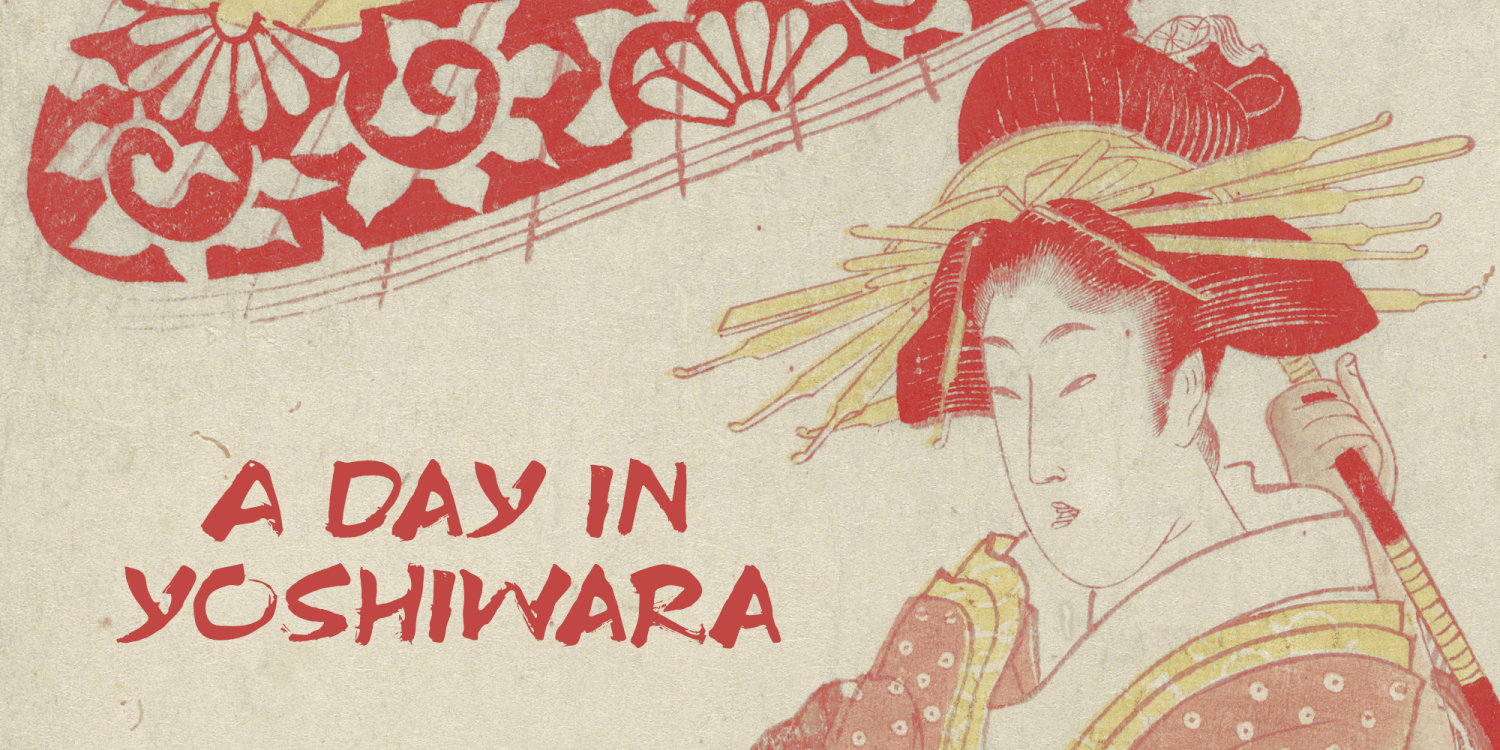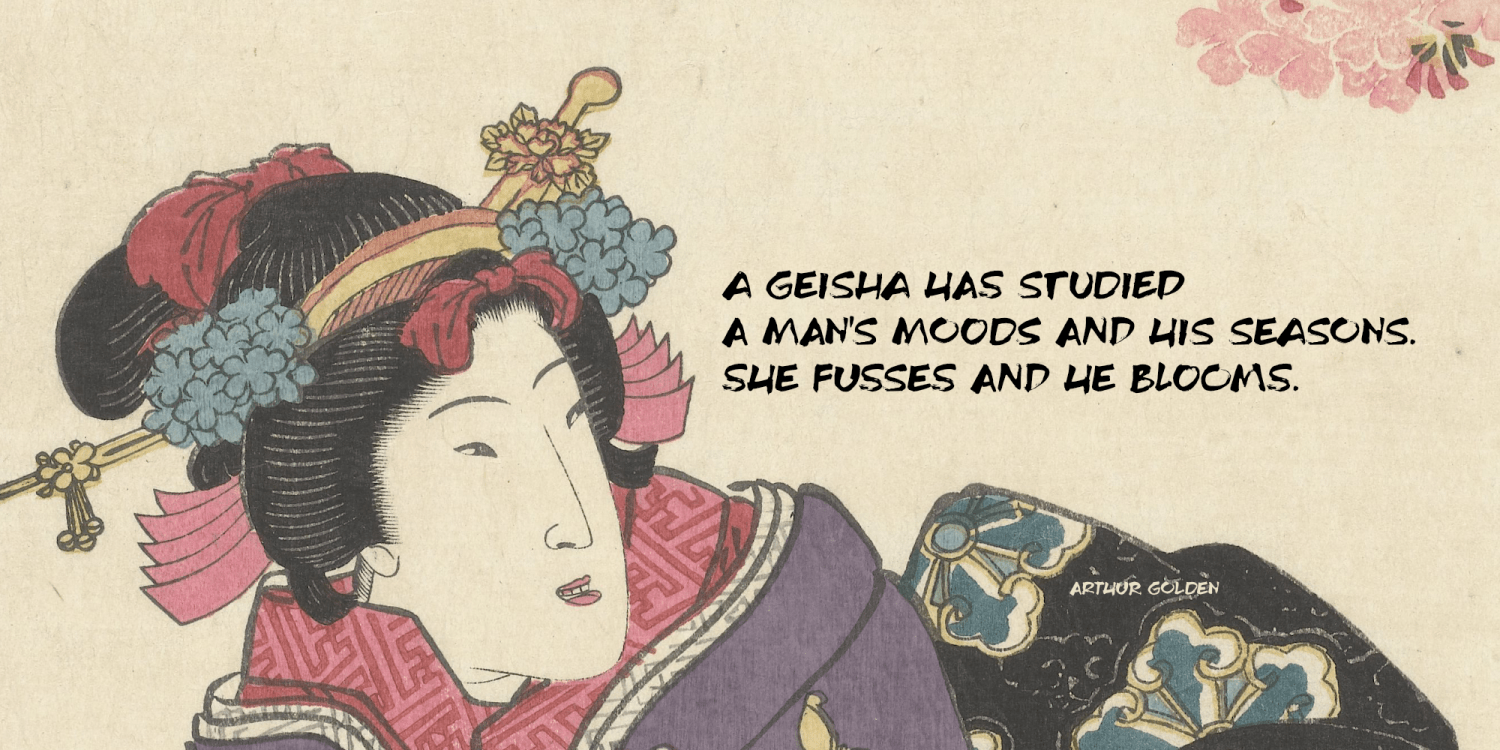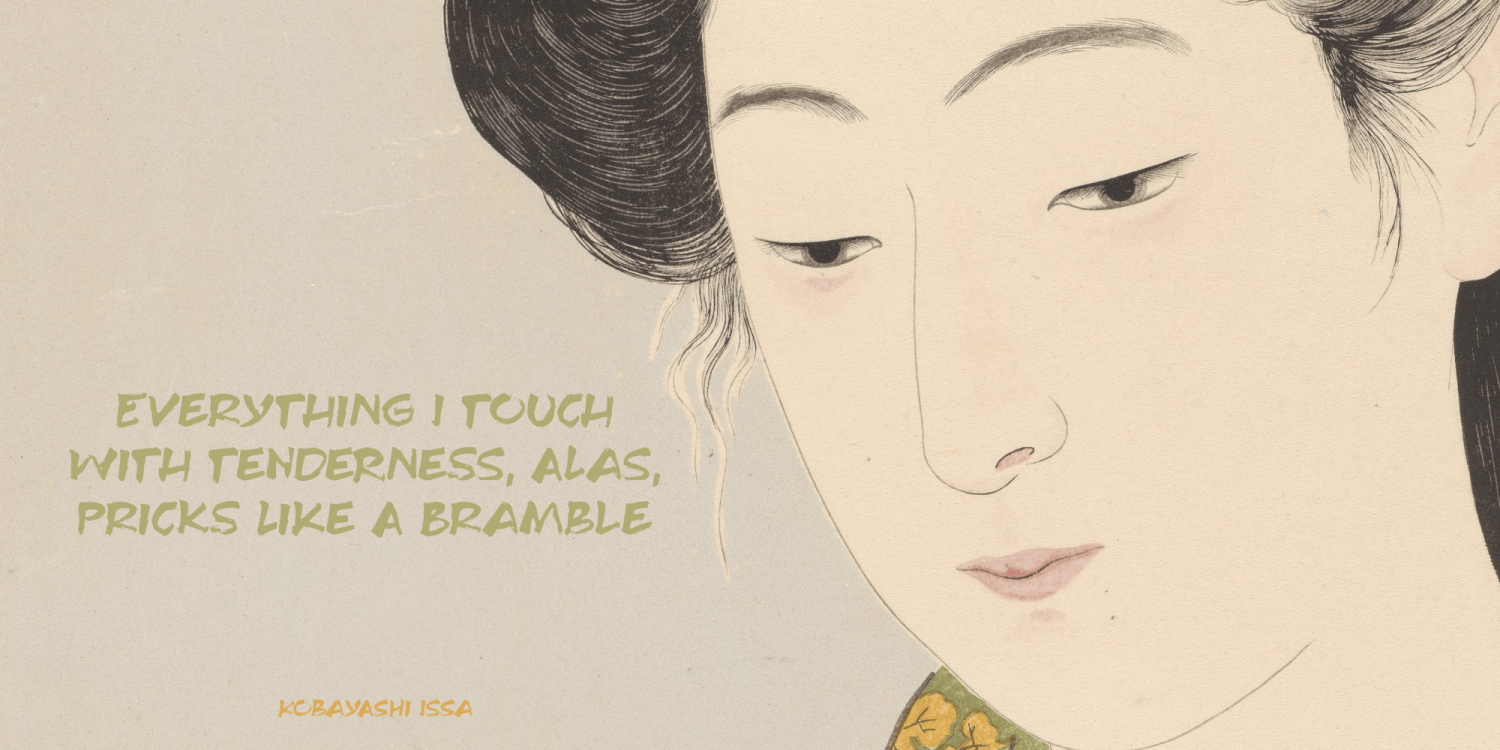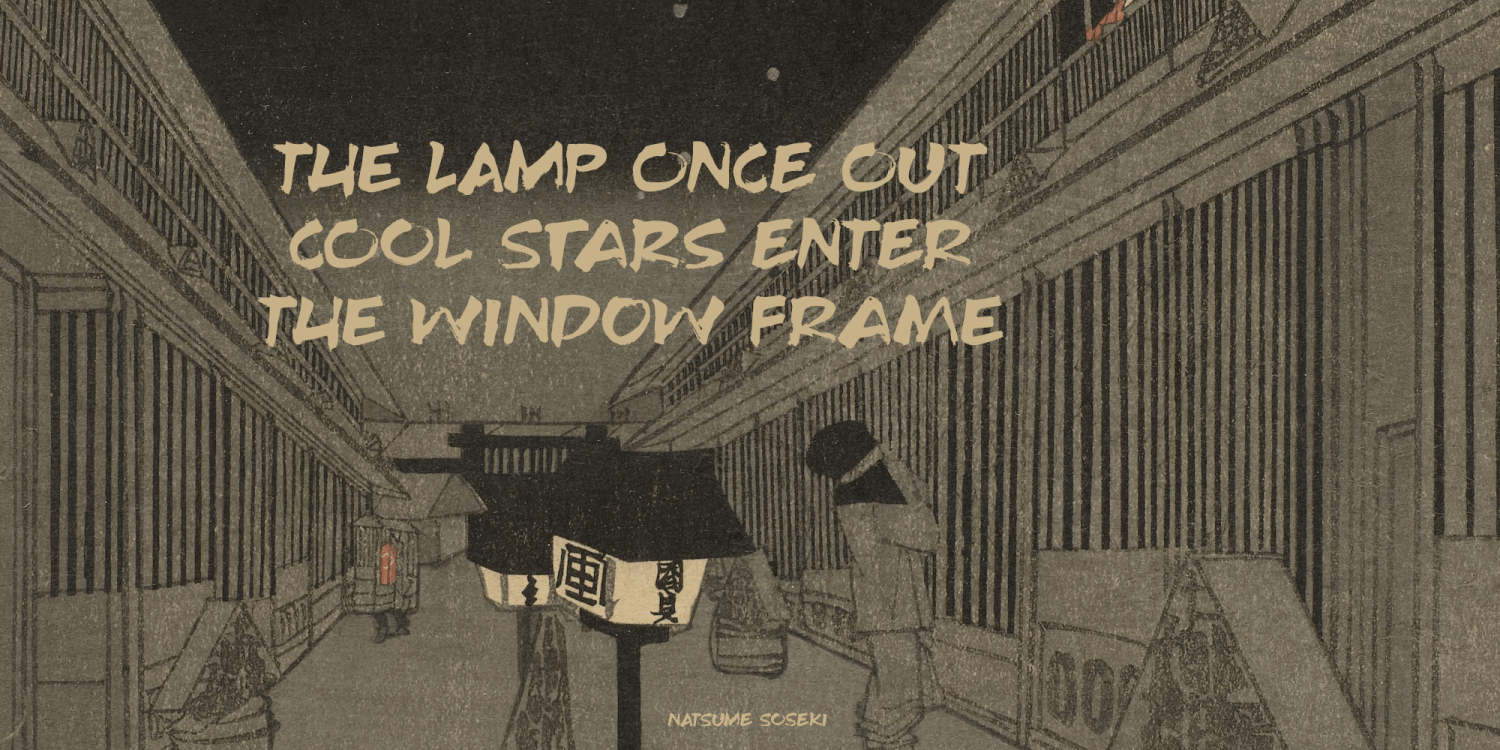
About Ukiyo MInd
By chance I stumbled upon an unfinished font in my fonts folder (while looking for something else). It had a stupid working name, but when I opened it, the font looked really nice! I have no idea why I never finished it. I renamed it Ukiyo Mind, because…